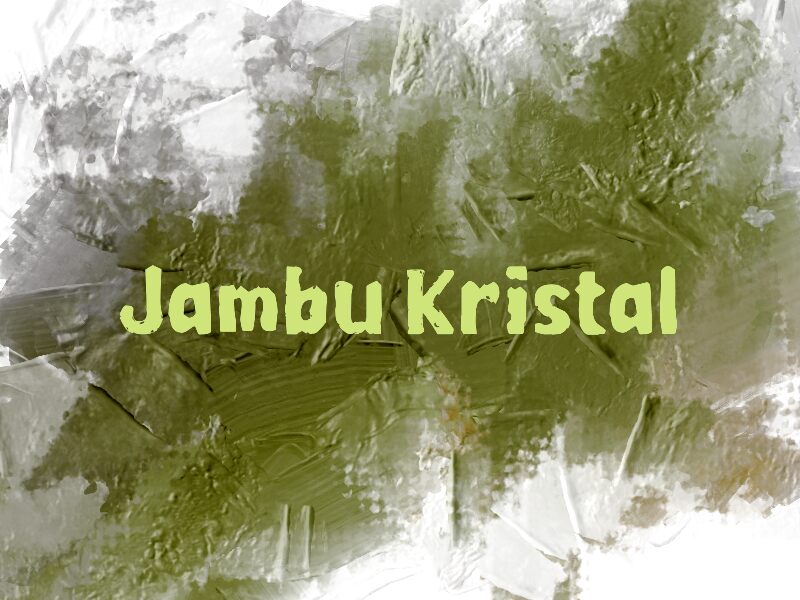
Jambu Kristal
Jambu Kristal font by wep is a free eroded display font. Its defining vibe is that squishy, inky softness rubbed through with grainy wear—like wet paint stamped on rough paper. The shapes are generously rounded and heavy, yet the scuffed edges keep it from feeling cutesy, landing in that sweet spot between friendly and feral.
Using Jambu Kristal, headlines grab attention with chunky rhythm and an organic, handmade pulse. It shines on streetwear graphics, gig posters, food truck menus, indie game titles, craft beer labels, and seasonal event flyers. This free font works beautifully large; pair it with a clean geometric sans for subheads to let the texture breathe and the message punch through.